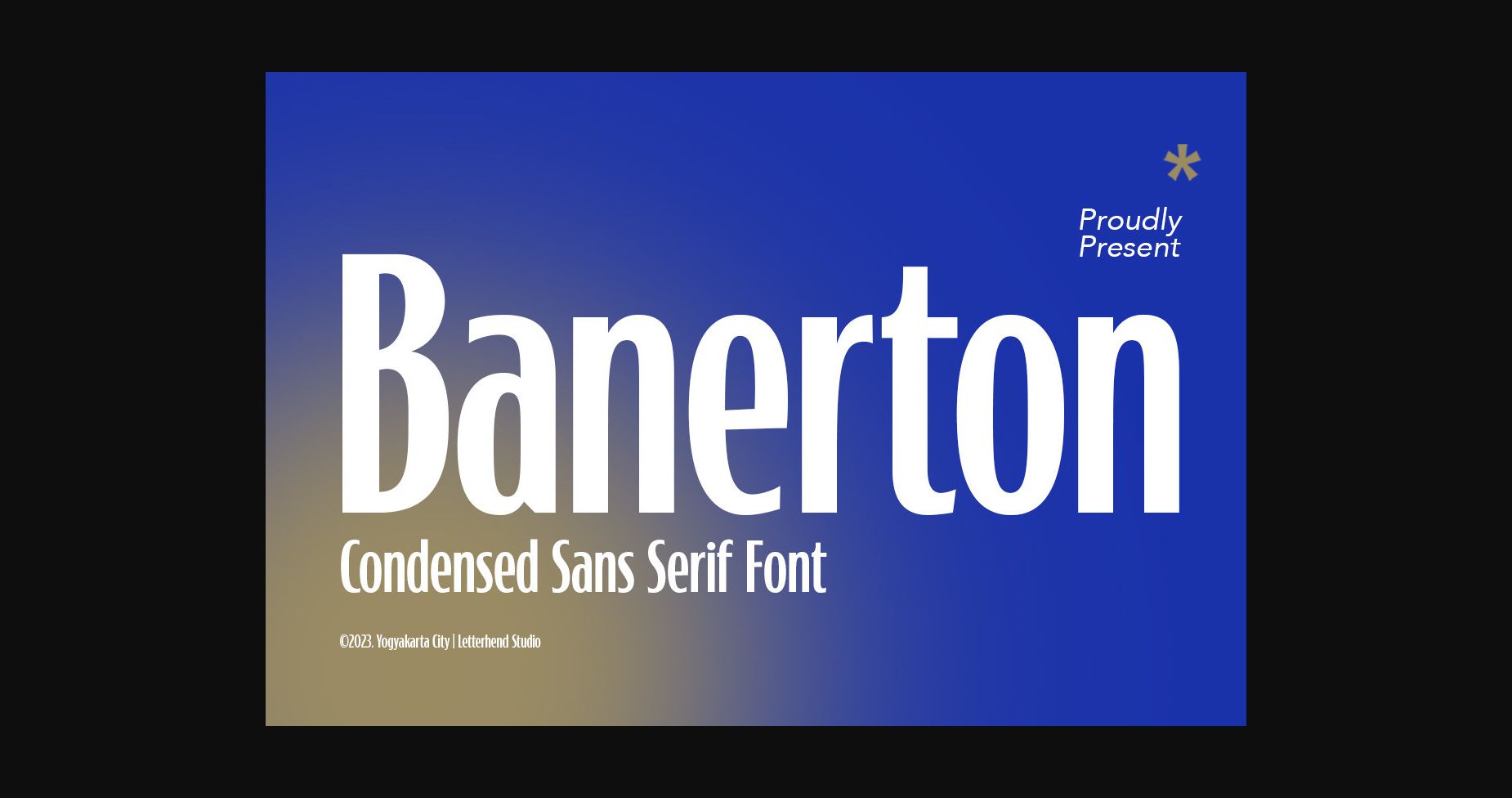
About Banerton Font
Banerton is a sans-serif font that is condensed, modern, and incredibly attractive. Its sleek and streamlined letterforms, with their clean lines and minimalistic design, create a sophisticated and professional effect. Perfect for headlines, logos, and branding projects, it adds a touch of elegance and simplicity, making it a top choice for any design project that requires a modern and contemporary look.